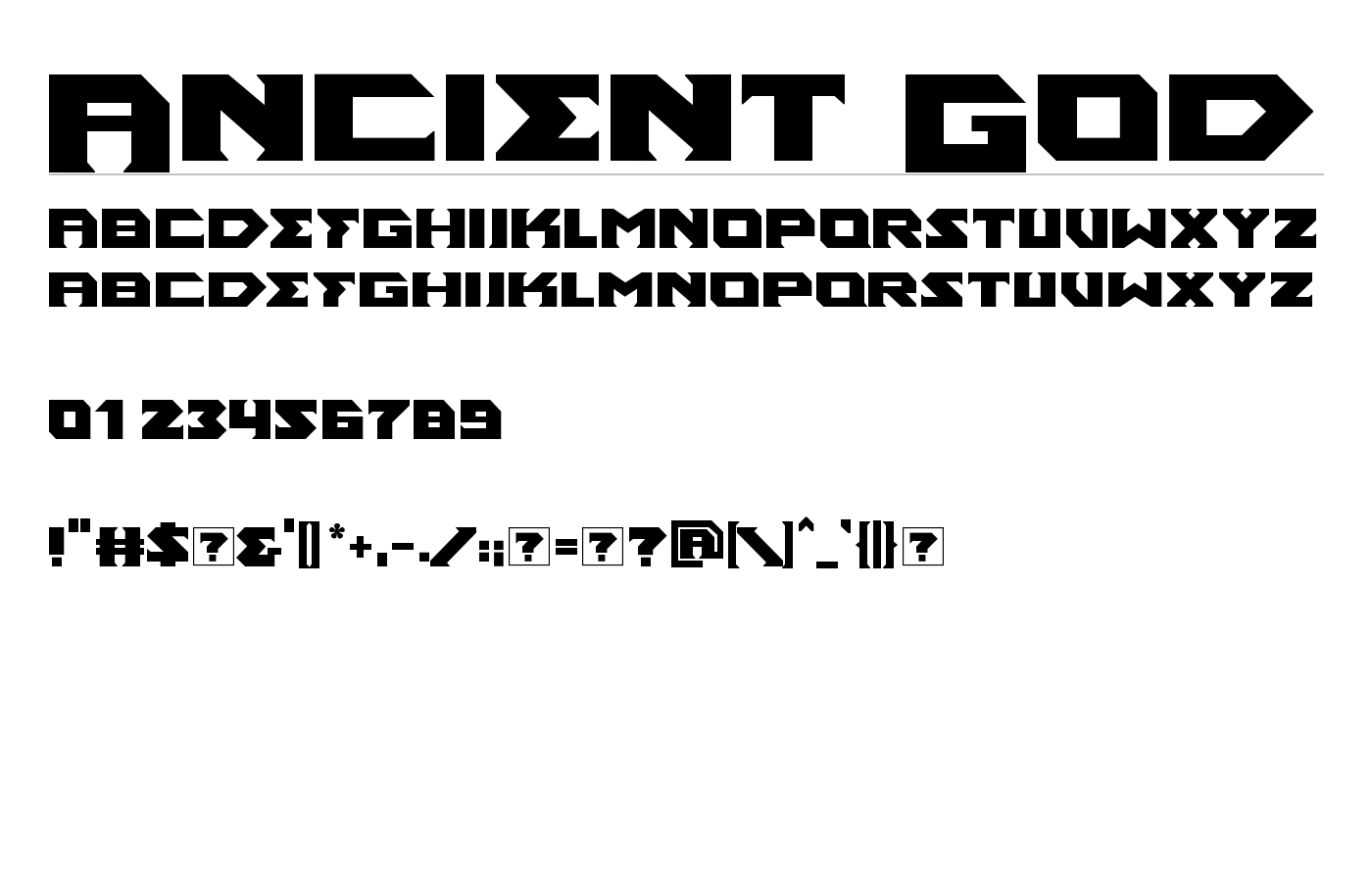
Ancient God is a bold, geometric sans serif font with a striking, angular design that evokes a strong, heroic vibe. Its sharp edges and blocky letterforms give it a powerful, commanding presence, making it ideal for logos, posters, and headlines that need a dramatic and ancient-inspired look. This font works especially well for branding related to fantasy, gaming, or mythology where a bold, modern take on an ancient style is desired.
Ancient God Font
About Ancient God Font